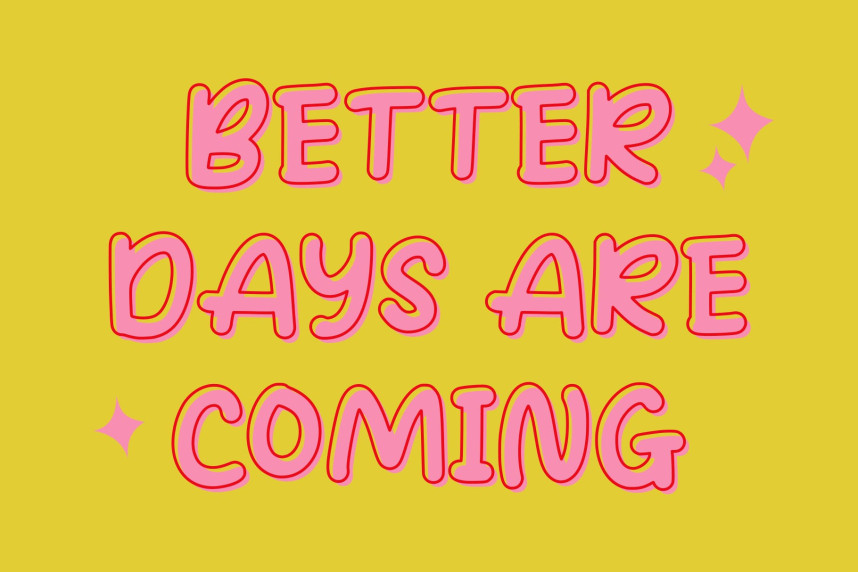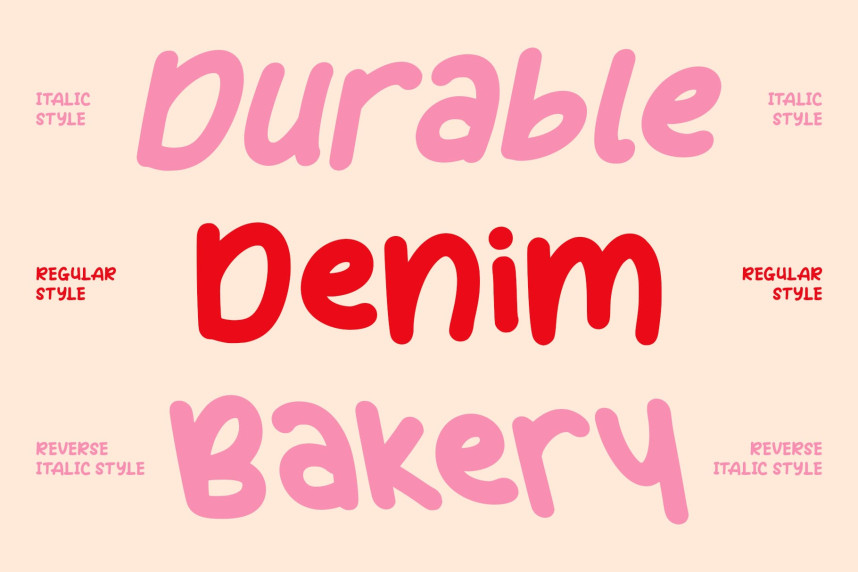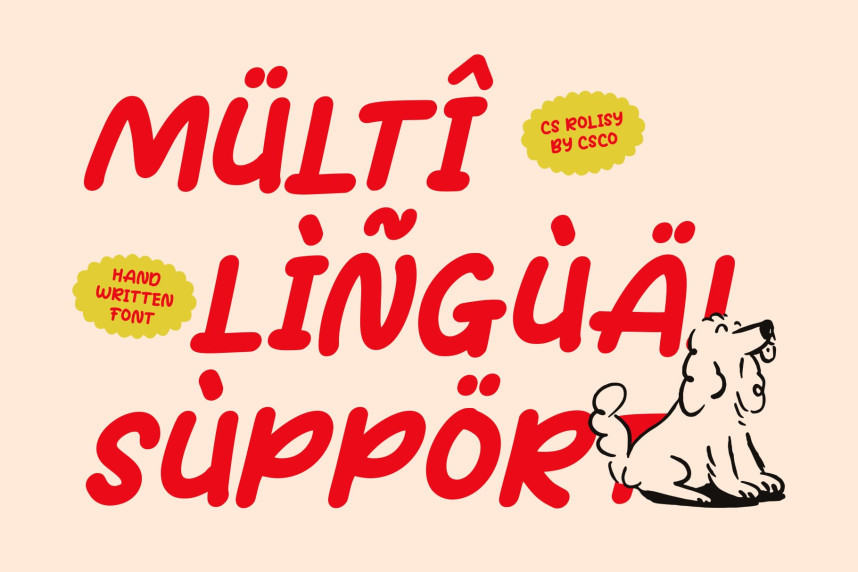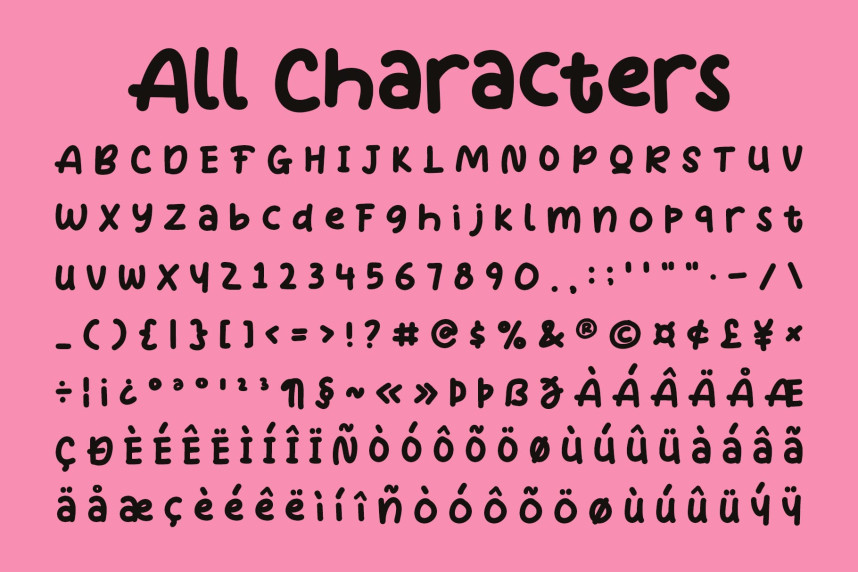
CS Rolisy Font
CS Rolisy Font – Modern Display Font with a Cheerful Handwritten Touch Playful Modern Display Font. This is a modern display font infused with a handwritten personality, designed to bring joy and expressiveness to your typography. Its clean, well-balanced letterforms blend structure with creativity, making every word feel both approachable and stylish.